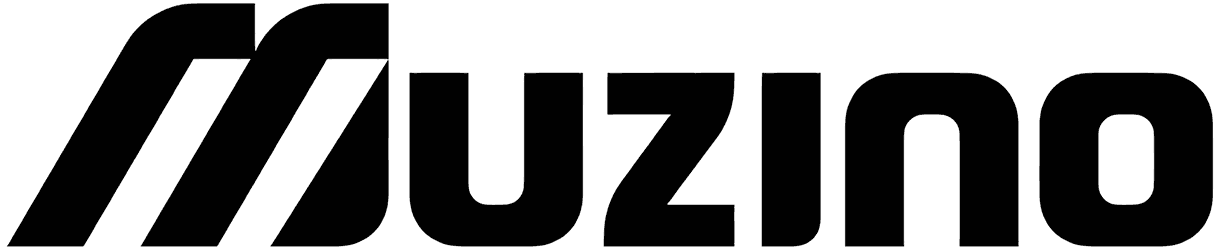
Muzino Font
If you intend to present a design with a special and stark mood, don’t pass on this item. Muzino font is a cool logo font with a bold and urban style that has two styles of capitals, but it doesn’t cover lowercase letters. Give it a shot and set it on your intended designs, like sports posters, game shows, or many others the same, and give them a speed vibe.